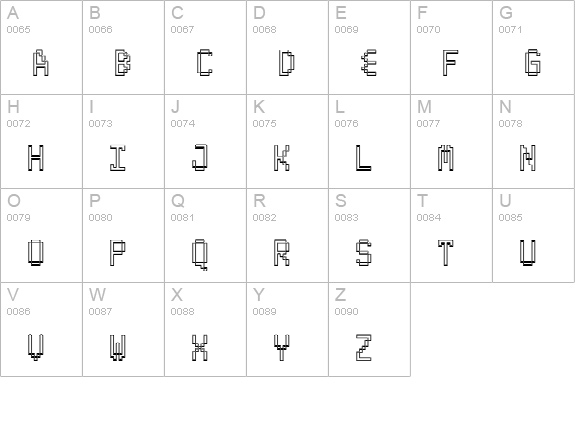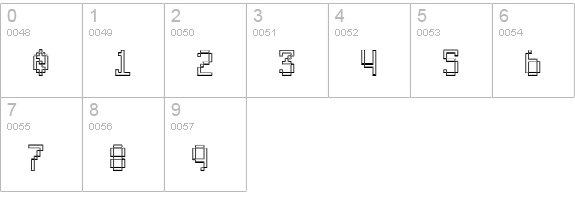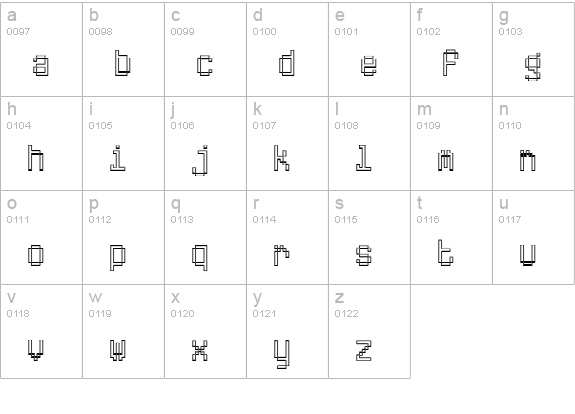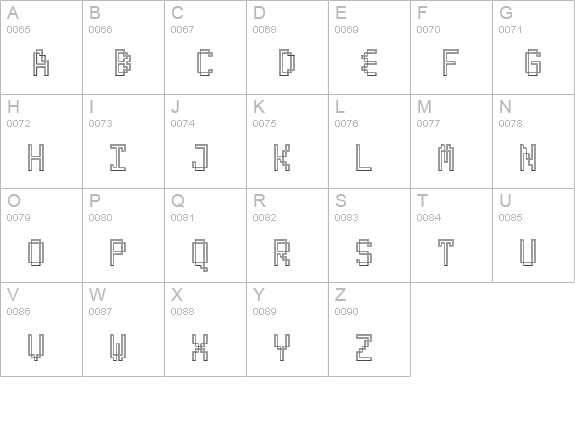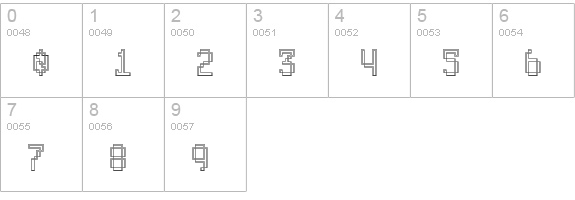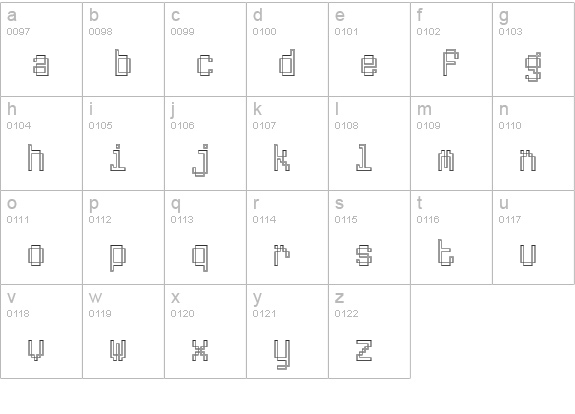
ABS7 Font Details
ABS7 font is a modern and stylish typeface that exudes elegance and sophistication. With its sleek lines and clean design, ABS7 font is perfect for a wide range of projects, from branding and advertising to web design and print materials. This versatile font can easily adapt to any design style, making it a must-have in your font collection. What's even better is that ABS7 font is available for free download at FontsMarket.com. So you can easily add this beautiful font to your projects without breaking the bank. Don't miss out on the opportunity to enhance your designs with the timeless appeal of ABS7 font. Download it now and elevate your creative projects to the next level.